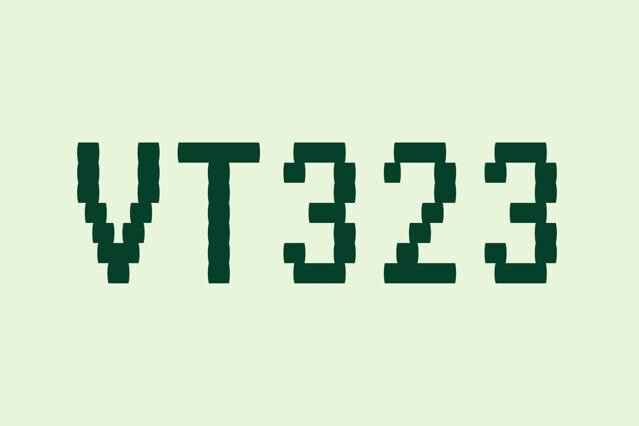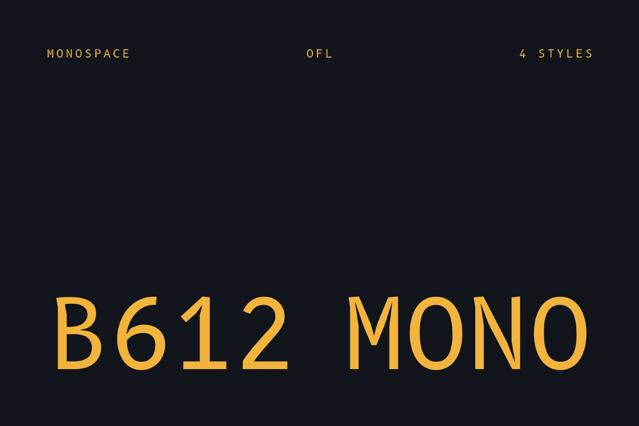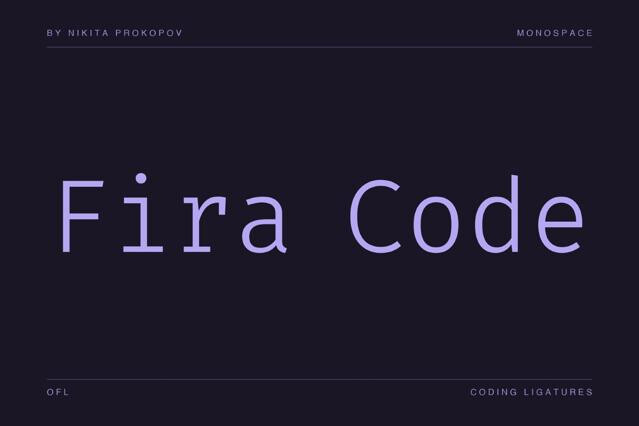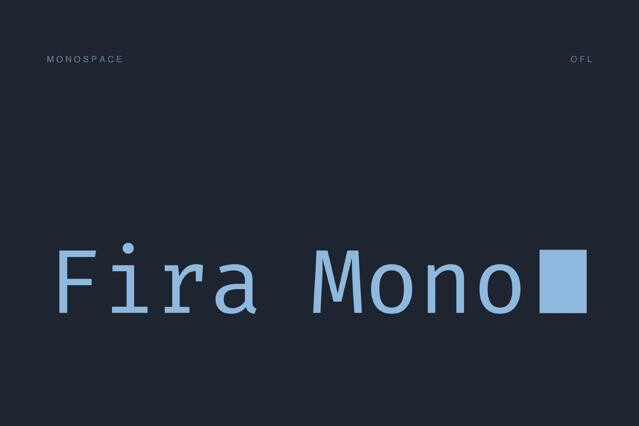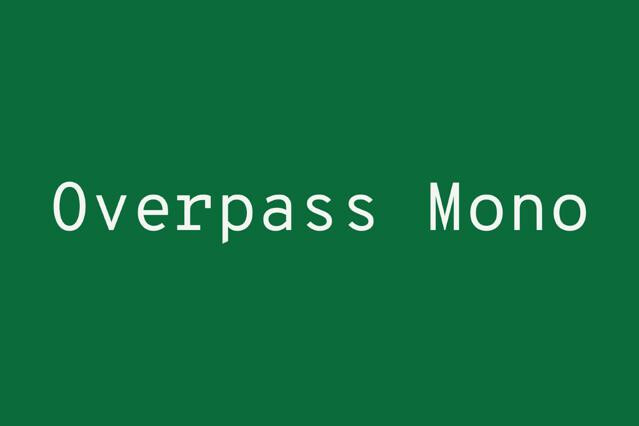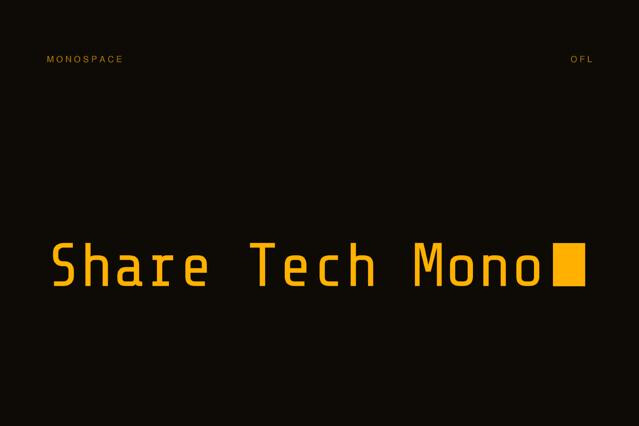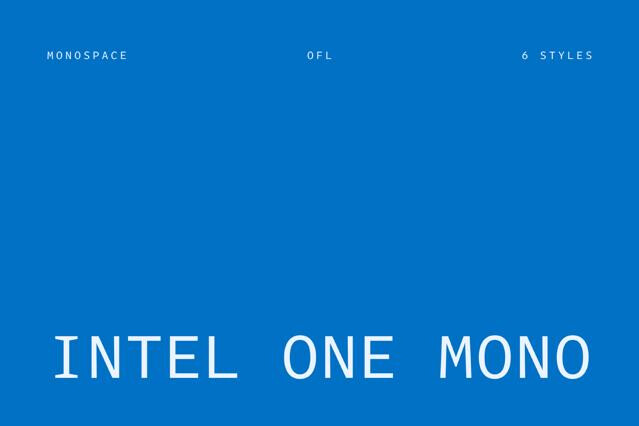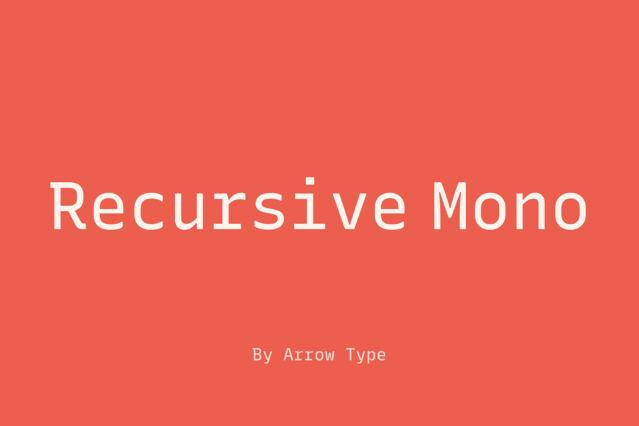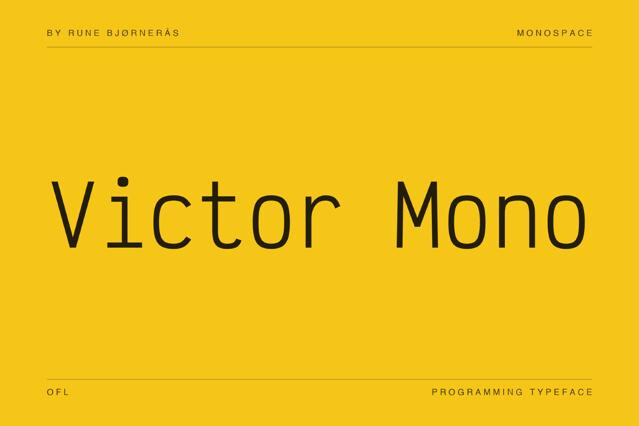
Terminal Fonts
Terminal fonts speak from inside the machine. Every character sits in its cell and lines snap to the grid, with an emotional range that tops out at ERROR. Inside are working console monos, bitmap and CRT faces, calculator LCD styles, receipt and glitch letterforms, and stylized tech display monos for posters.
Terminal fonts: when the machine talks back
For a few decades, a computer had exactly one voice. The screen was a grid of identical cells, every character glowed the same green on the same black, and the machine filled those cells one by one, letter after letter, with no bold, no italic, no opinions. Terminal fonts are that voice preserved: fixed-width characters with uniform strokes and proportions inherited from old screens.
Now here's the part we find fascinating: the look refused to die with the hardware. Long after screens learned color and smooth curves, the green-on-black grid stayed in the culture as the way computers really talk, underneath all the friendly interfaces. The Matrix built an entire visual identity on falling terminal glyphs. Every film hacker since has typed into the same glow, because a director knows the audience gets it instantly: this person has reached the machine itself. And you still meet the honest, working version of the style every day, printed on thermal paper: a receipt is a little terminal document, monospaced and deadpan.
That deadpan quality is really what the genre carries. Terminal type sounds like a system reporting facts: it has information and no feelings about the information. Designers borrow its voice deliberately, for developer tools, cybersecurity brands, music, or an editorial piece dressed as a system log. It's one of the few typographic registers where coldness is the warmth, if that makes sense: the machine isn't trying to sell you anything, and after a day of type that is, it comes as a relief.
Terminal fonts by habitat
- Working console fonts: modern faces built for actual command lines, including Cascadia Code, which ships as the default of Windows Terminal.
- Bitmap and CRT faces: character-cell letterforms preserved from phosphor screens, staircase curves intact.
- Receipt fonts: thermal-printer deadpan, the terminal aesthetic everyone is familiar with.
- Calculator LCD display: segment-flavored faces in the register of graphing calculators and digital dashboards.
- Glitch and error faces: letterforms mid-malfunction, for designs where the system is visibly struggling.
- Tech display monos: stylized fixed-width faces built for posters, not prompts, the terminal voice at billboard volume.
Getting the terminal look right
Let us show you the mistake that gives beginners away. They pick a great terminal font, and then they compose with it like designers: centered title, balanced layout, nice symmetry. And it just stops working, because a terminal never centered anything in its life. A machine prints line after line, all of it flush left, in the order things happened. So if you want the effect, write like the machine: everything on the left edge, ragged right, and borrow the system's speech habits, a > before a line, a timestamp, a label and a value in two columns, an OK or an ERROR where a sentence would end. It sounds like a small thing, but it works.
Color is where the second mistake happens. The classic schemes, green on black, amber on black, come from hardware that could show one color. That limitation is the style: one color for text, black for everything else. If you genuinely need another accent, do what real interfaces did: invert something, a strip of solid color with the text punched out of it, like a highlighted line in an old menu.
And here's a trick we love, because it costs nothing and looks fantastic: take these letters, which were drawn for screens where a character was twelve pixels tall, and set them huge. Poster huge. All the hard corners and staircase curves that were invisible at reading size become bold graphic shapes at half a meter, and the font builds the presence of signage. There's something satisfying about it, this was the most utilitarian lettering ever made, designed to be small and ignored, and it turns out to look monumental the moment you give it room.
Assignments for a terminal font
- Developer tools, APIs, and infrastructure startups.
- Cybersecurity companies.
- Hacker-thriller film and game UI: the screens over the character's shoulder.
- Electronic music releases and techno event visuals.
- Editorial design using system-log aesthetics: timestamps, prompts, error messages as narrative devices.
- Merch for the terminally online: tees and stickers in prompt syntax.
- Receipt-styled design: order confirmations, event tickets, menu concepts.
Fixed widths, uniform stroke weight, and proportions inherited from character-cell displays, where every glyph had to fill the same box on a coarse grid. Many descend from actual bitmap faces, staircase curves included. The uniformity that hardware once forced is now the style.
Developer tools and hacker-adjacent branding, cybersecurity, film and game UI, techno and electronic music graphics, fake receipts and system messages as editorial devices. The register is instantly readable: this text came from a machine, possibly one with opinions.
Respect the grid: integer scaling for pixel-based faces, no anti-aliased smearing, and restraint with glow effects. One scanline overlay is atmosphere; three are a screensaver.
Box-drawing characters and symbols if you're mocking up interfaces, and general glyph coverage for anything multilingual. Authentic minimalism in the character map is charming right up until you need a proper quotation mark.